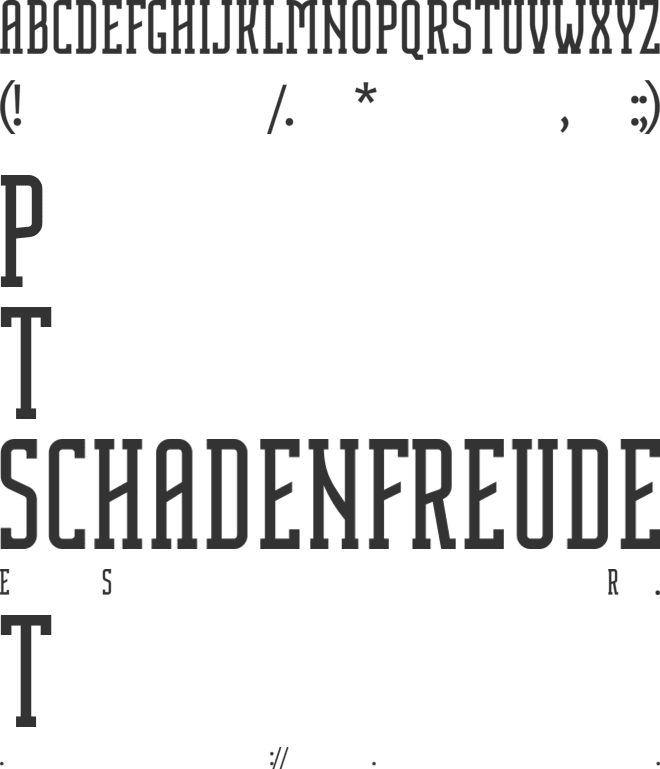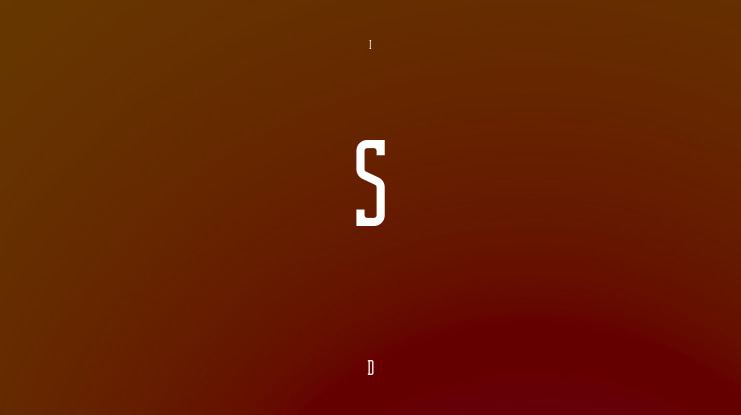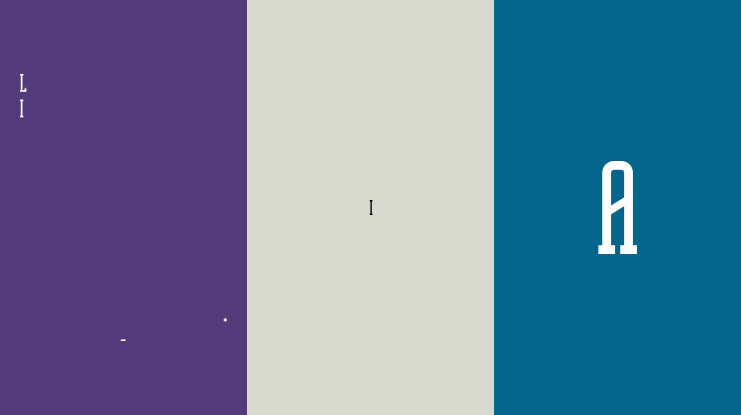
π¨ Font Name: Sleek by Minimalist Art Studio
π¨ Font Description: Sleek is a modern slab serif with high contrast and clean geometry, perfect for fashion branding, packaging, and editorial design.